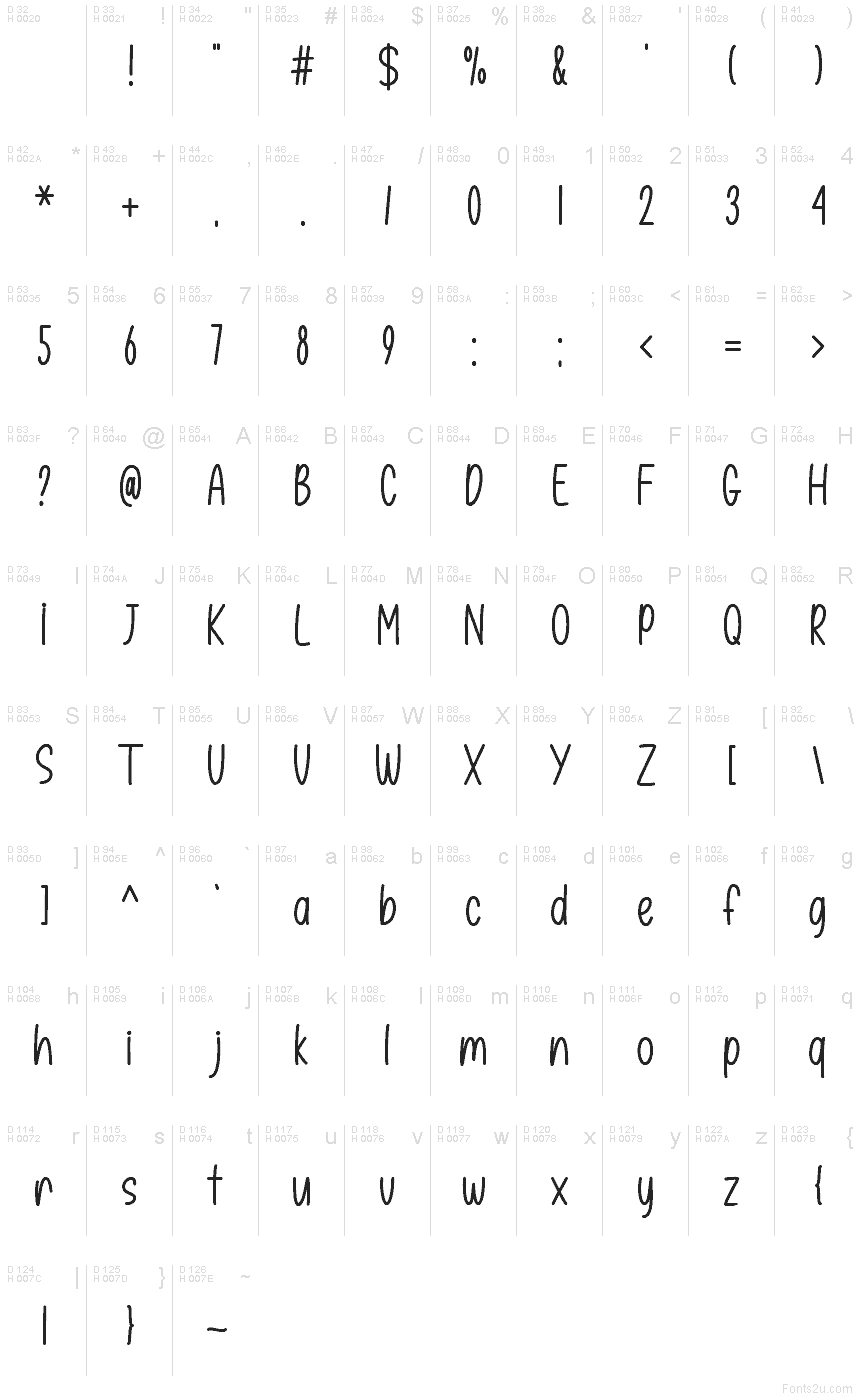
Chocho Crunch
Chocho Crunch font by DN Creative is a handwritten, condensed type that adds character to every design. Uneven strokes and random shapes are only some of the options Chocho Crunch Font provides and their imperfections are what make them so exquisite.
In your designs you can offer the viewers something new with posters, tags, signs, package designs for delicious sweets or dairy products, etc. Use it also for branding and business cards so everyone who holds these cards will realize that you pay attention to detail.